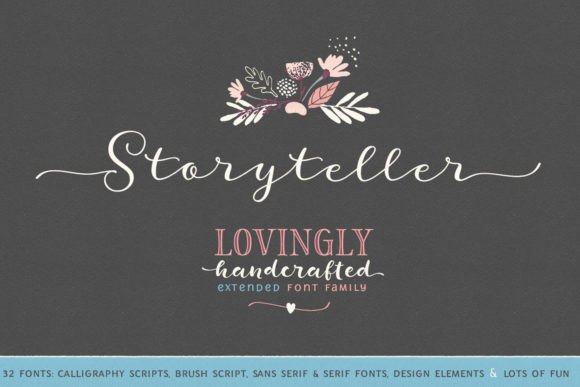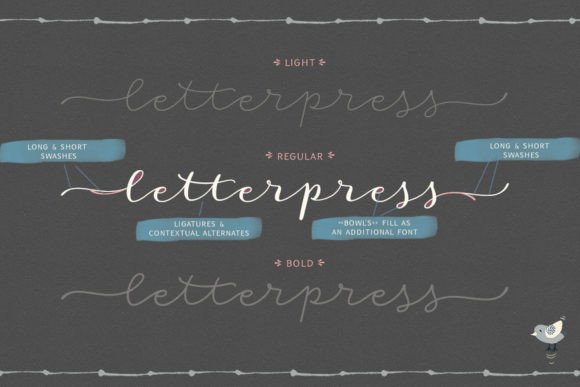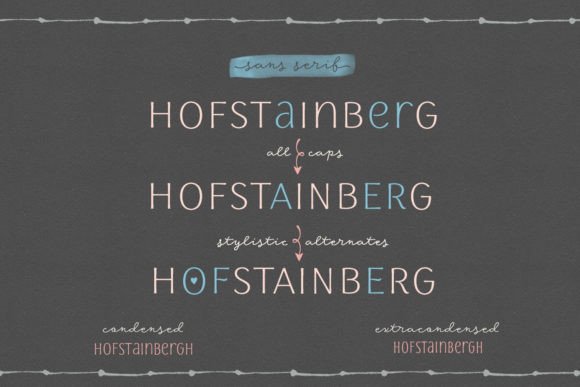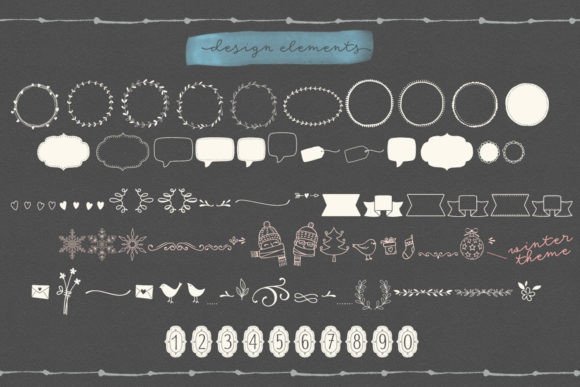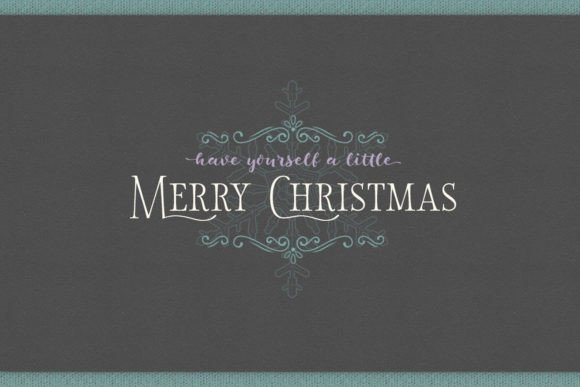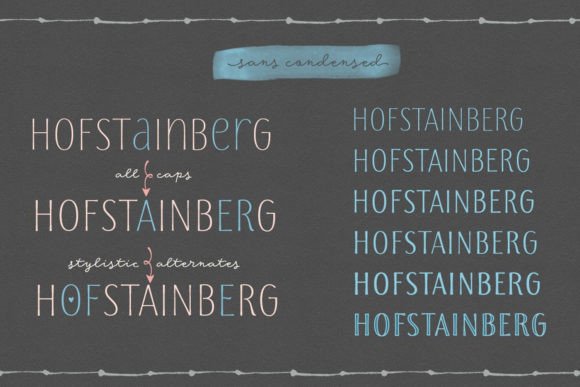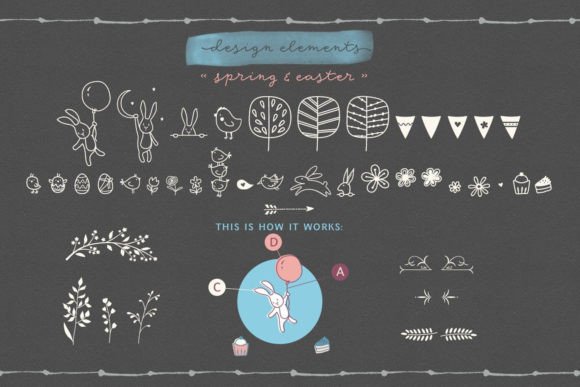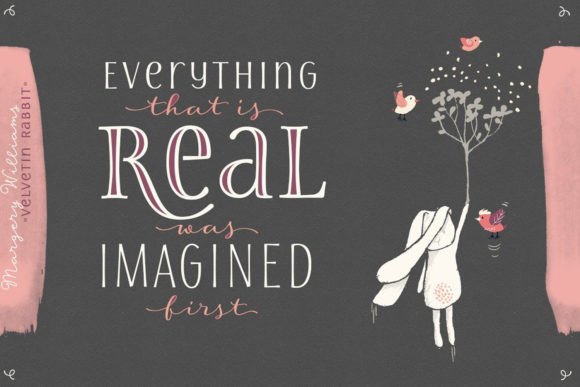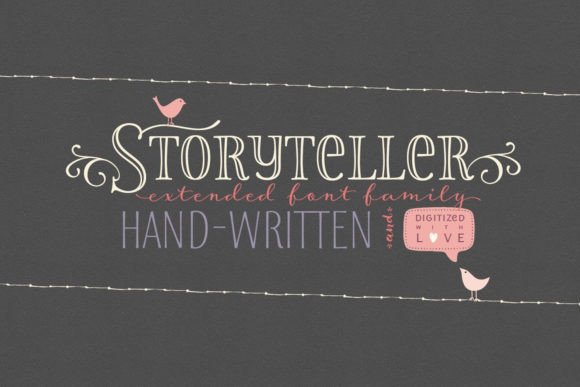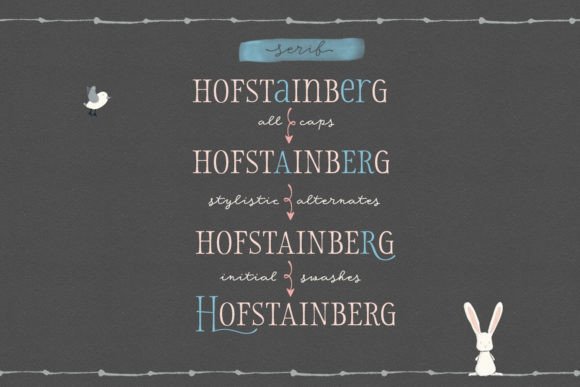
Storyteller
Storyteller is a lovingly developed, handwritten, hand-traced, and digitized font family that you can use in all sorts of design projects – branding, invitations, quotes design, etc.
Script fonts all have initial and end swashes as well as ligatures and contextual alternates. Serif and Sans serif fonts also have stylistic alternates. All fonts also have catchwords.